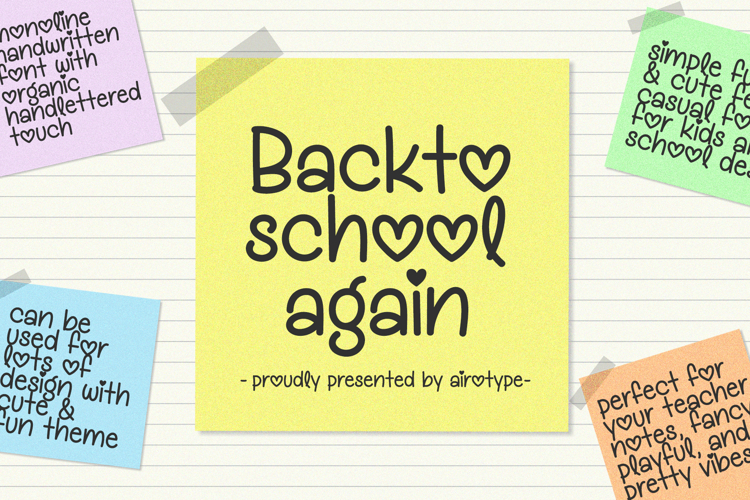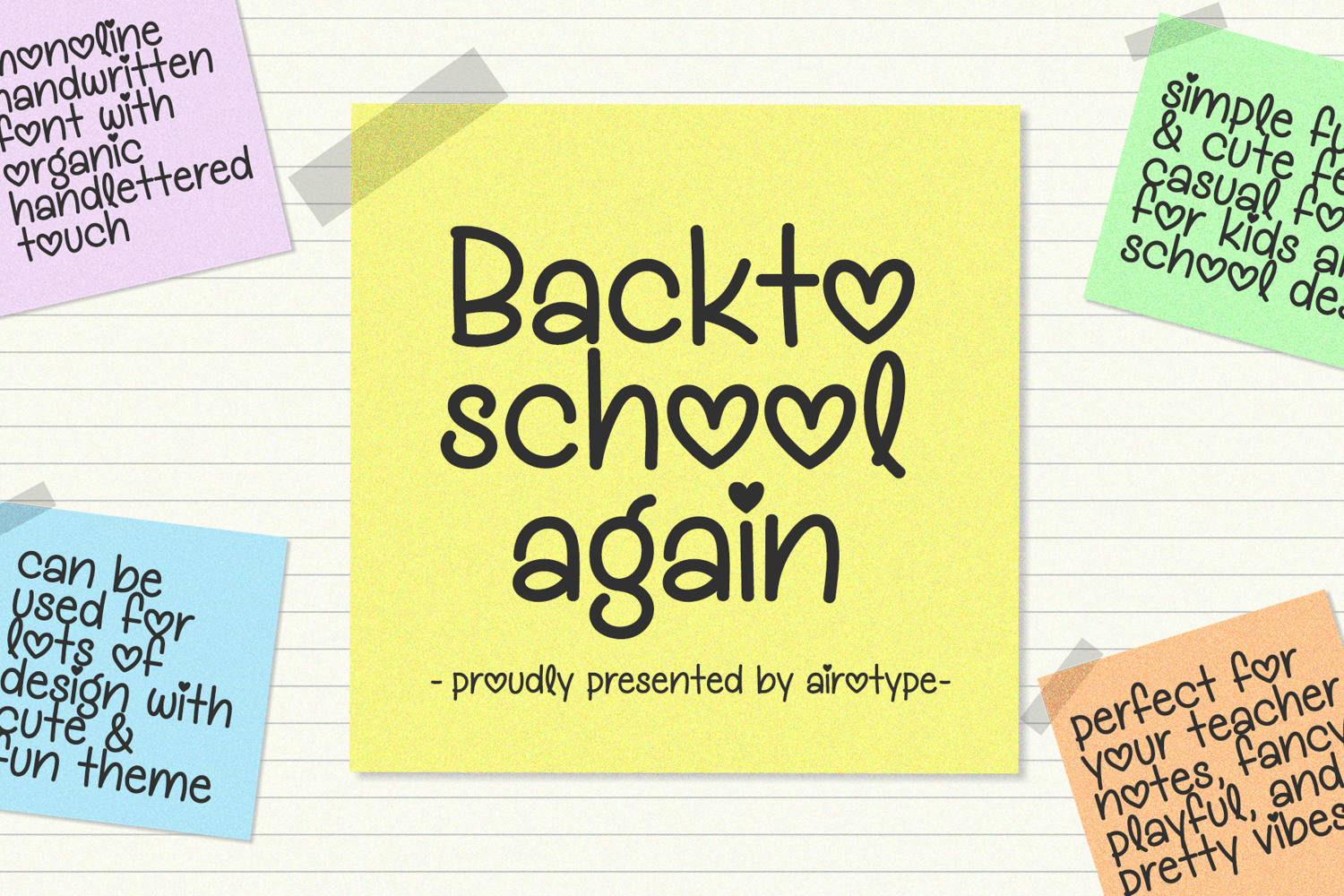
Back to School Again is simple casual handwritten font with organic cute and adorable sense.
This font is perfect font for design with handwritten touch, such as back to school design, birthday invitation, summer holiday design, t-shirt design, crafting, sticker, sublimation, and many more.